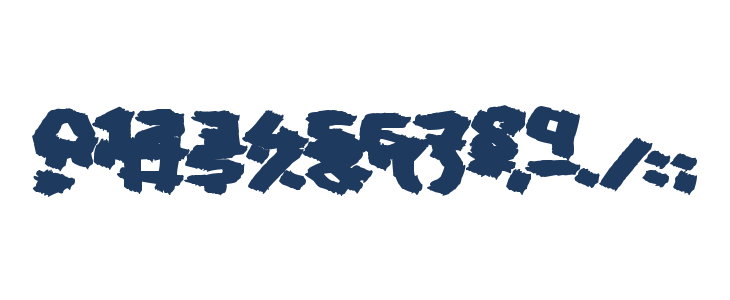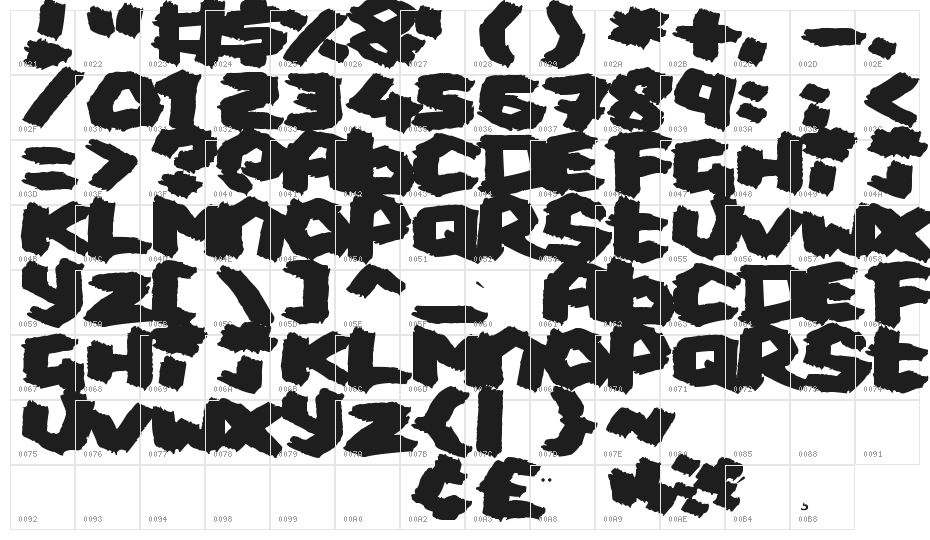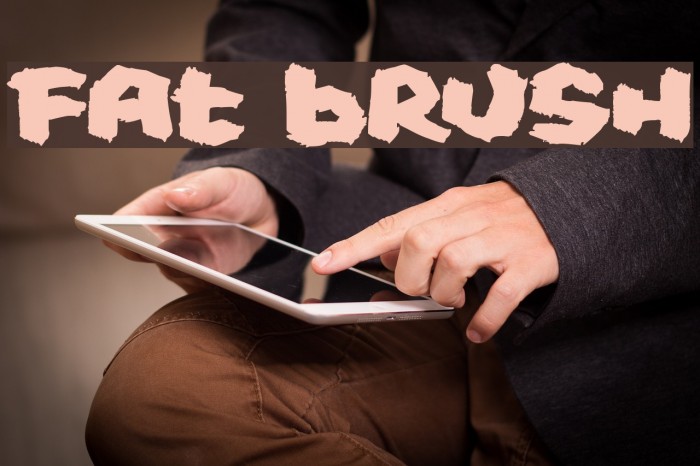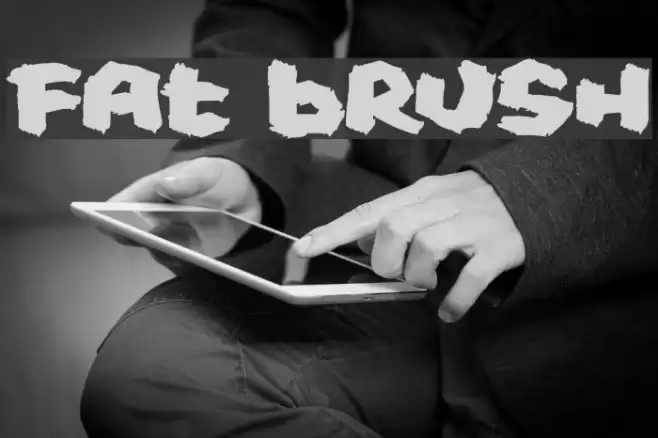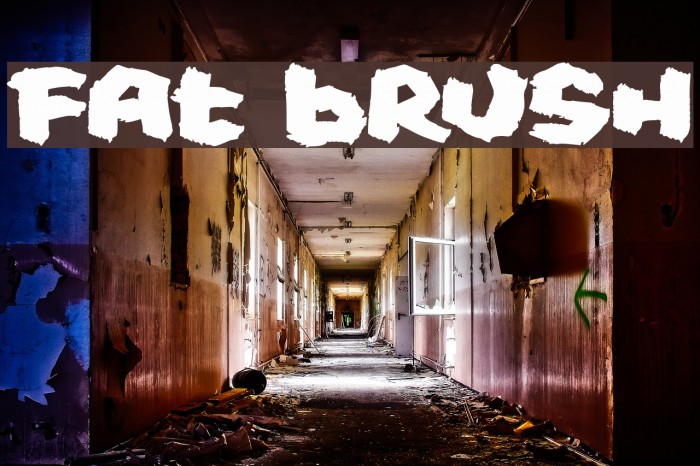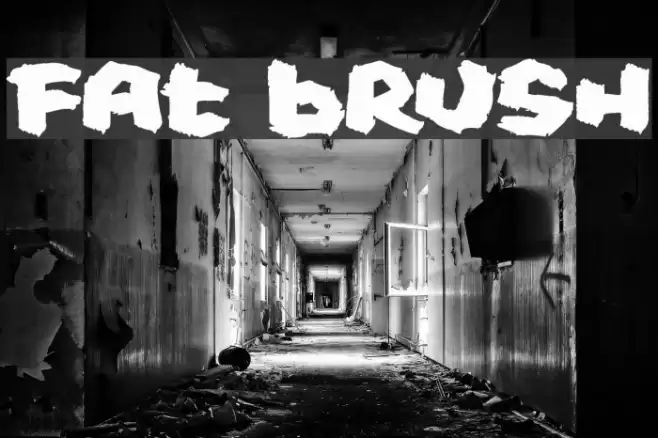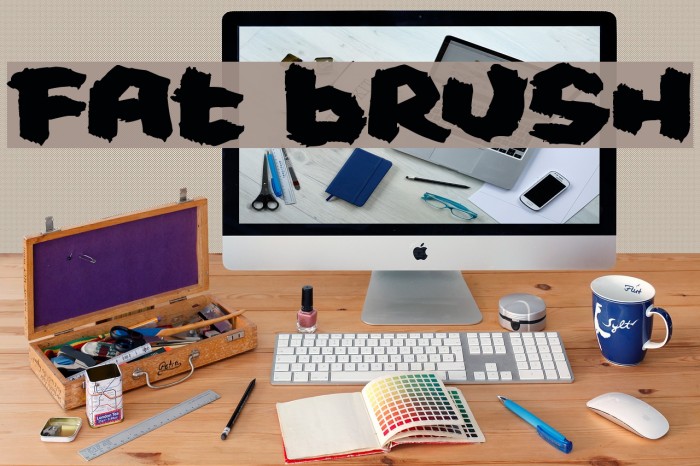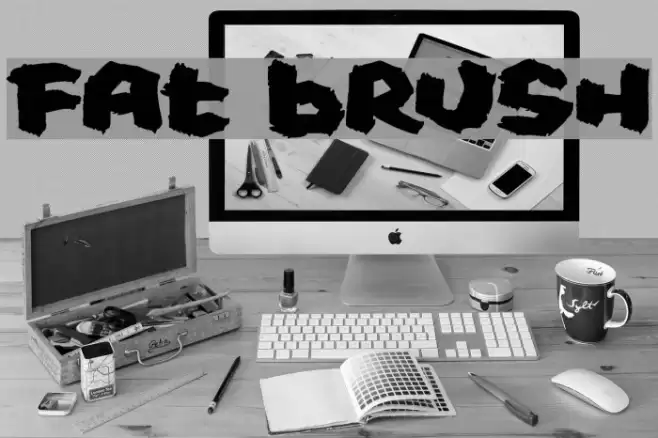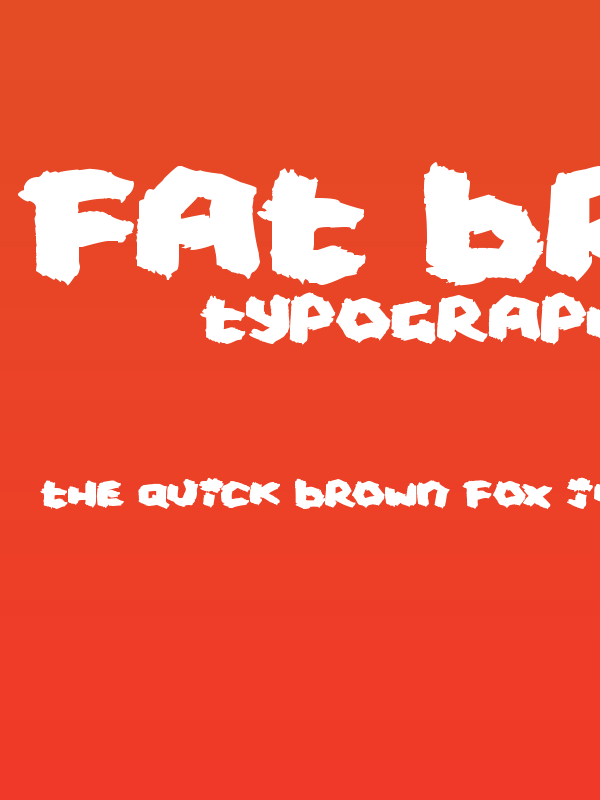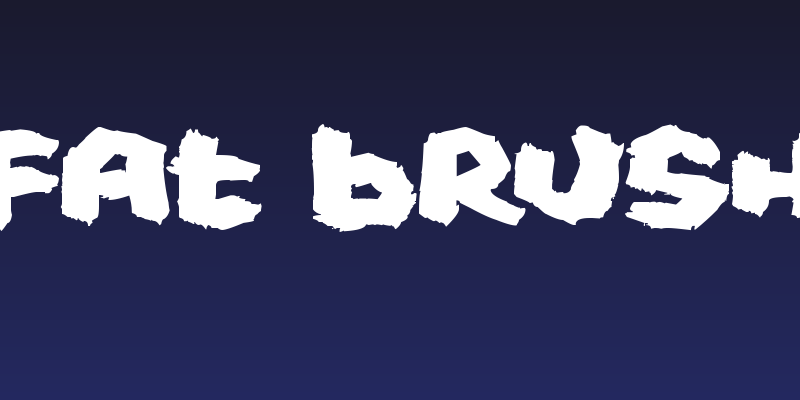
Fat Brush Font
Fat Brush Description
This bold and expressive font features thick, brush-like strokes that create a dynamic and energetic appearance. The characters are irregular and rugged, giving a hand-painted feel that is both artistic and impactful. The uppercase and lowercase letters maintain a consistent style, with jagged edges and a slightly distressed look. Numbers and special characters follow the same aesthetic, ensuring a cohesive design across all elements. The font's unique style makes it stand out, ideal for projects that require a strong visual presence.
| Proposed Projects | Ideal for posters, album covers, street art designs, and branding that requires a bold, artistic touch. |